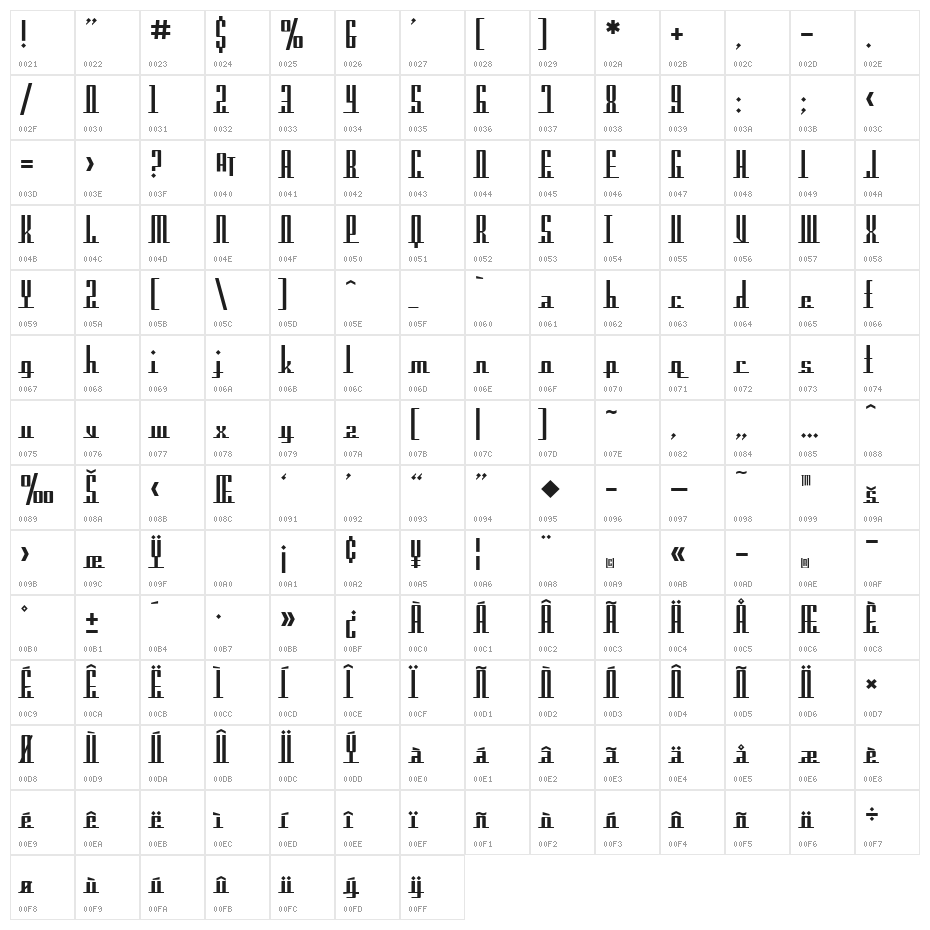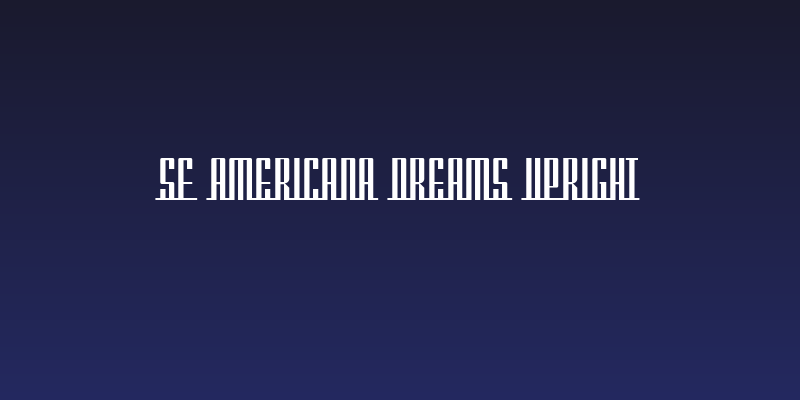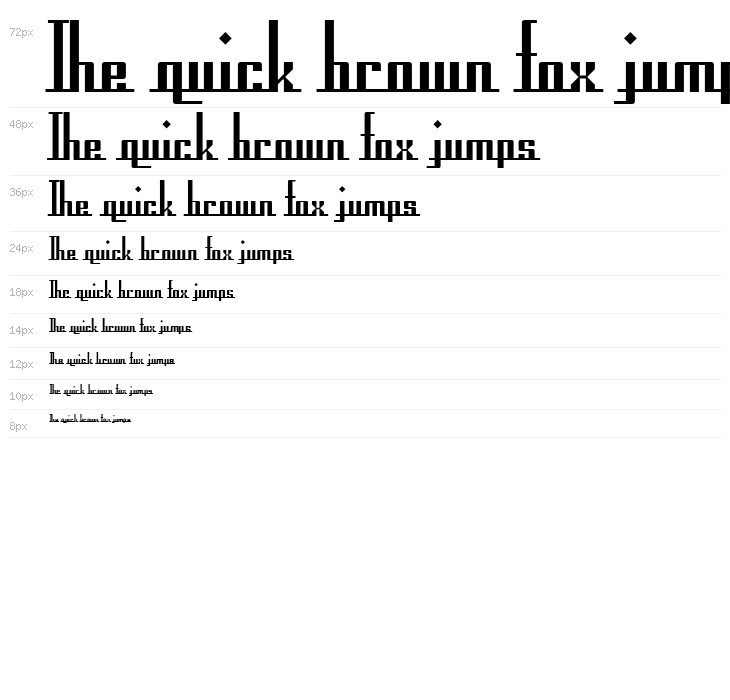
SF Americana Dreams Upright Font
SF Americana Dreams Upright Description
This font features a bold and striking design with a distinctly modern and geometric aesthetic. The characters are tall and narrow, with a strong vertical emphasis and minimal curves, creating a sleek and streamlined appearance. The uppercase letters are particularly elongated, while the lowercase letters maintain a consistent height that complements the overall style. The numerals and special characters follow the same design principles, ensuring a cohesive look across all elements. The font's unique style makes it ideal for projects that require a contemporary and eye-catching typeface.
Proposed ProjectsIdeal for branding, posters, headlines, and any design project that requires a modern and impactful typeface.